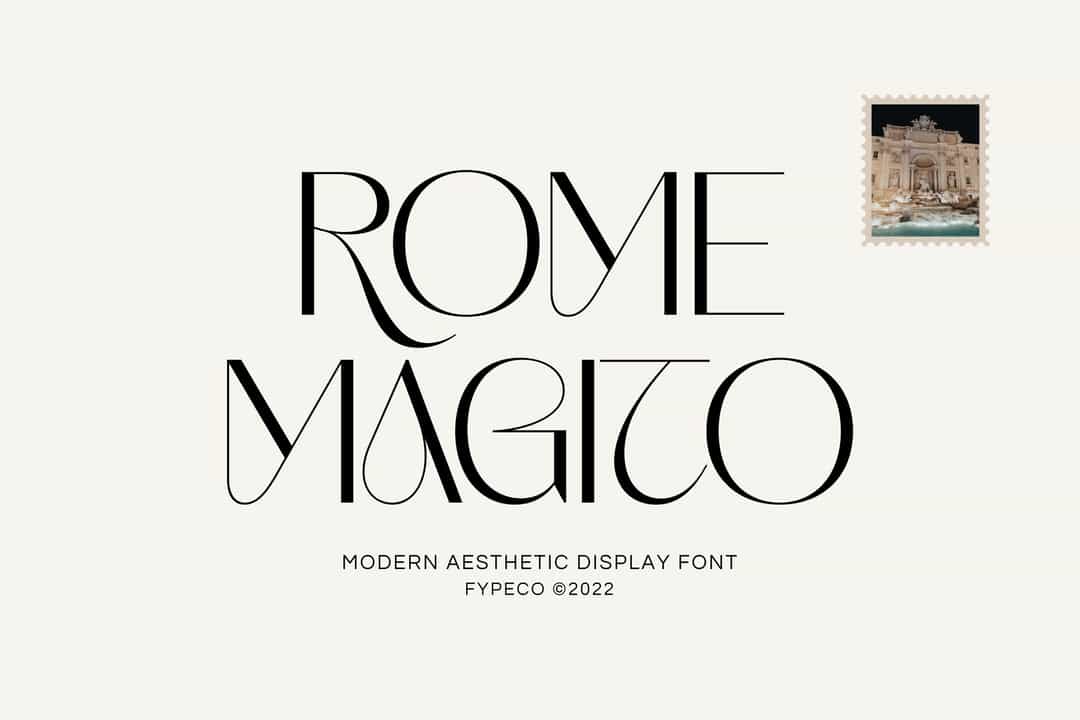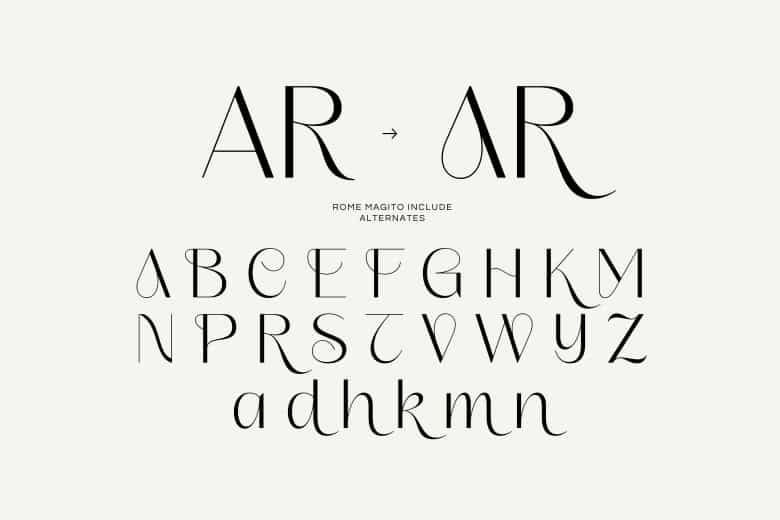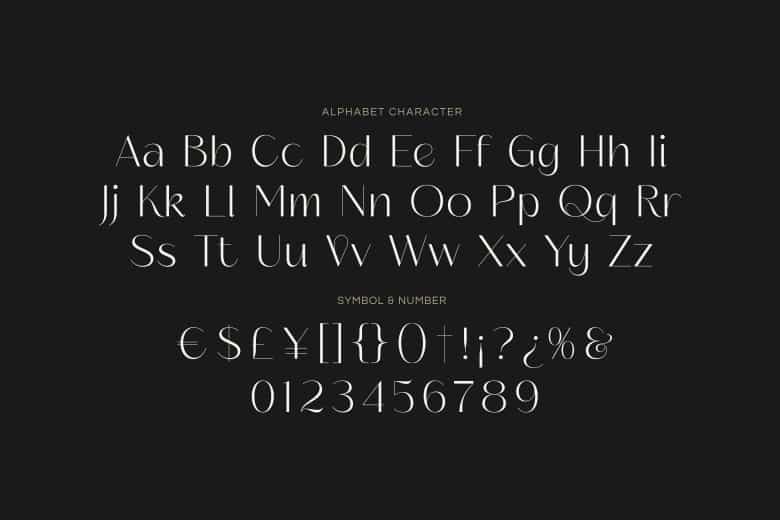
Rome Magito is a contemporary and aesthetic font featuring multiple alternatives and ligatures to provide you with a range of choices and variations for displaying text. Perfect for those seeking an elegant touch in their fashion with thin characters for modern or thin text settings.